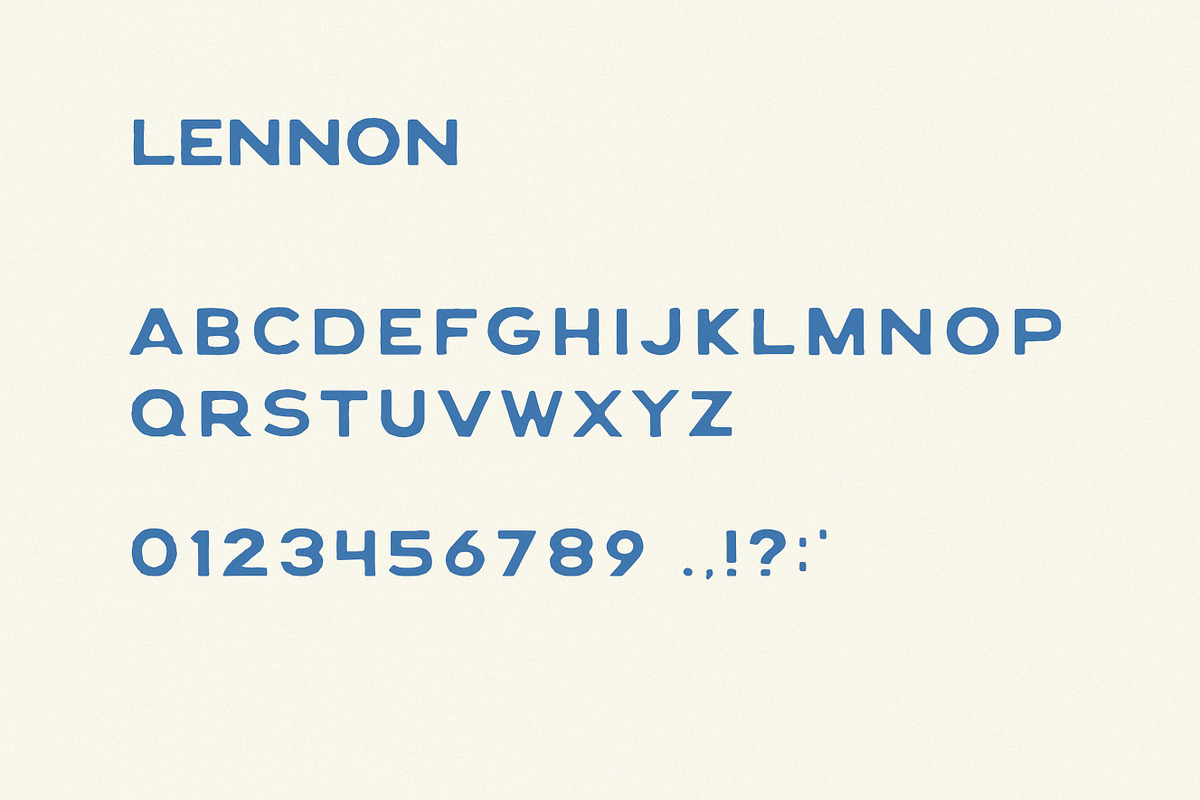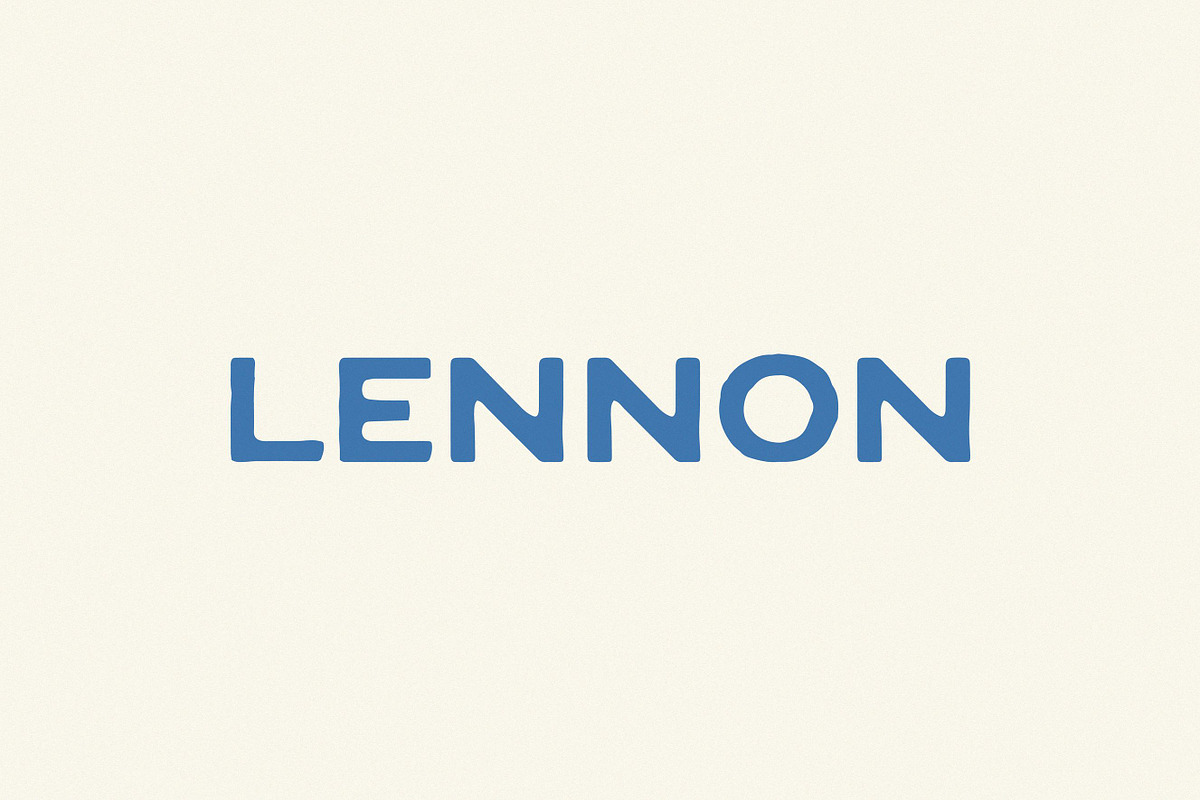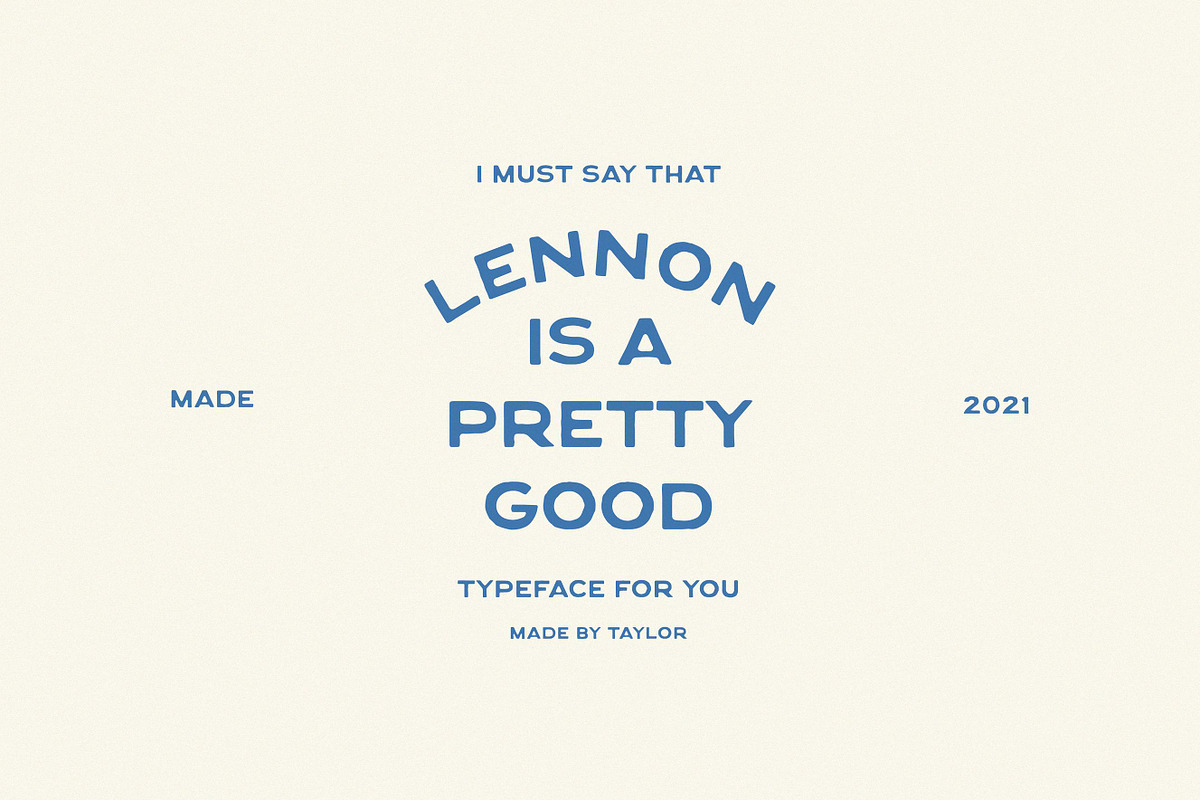
Lennon is a present-day take on lettering found on vintage packaging. This display font has rounded edges, imperfections, and a wide letter format. It has an uppercase alphabet, numbers 0-9, and basic punctuation.